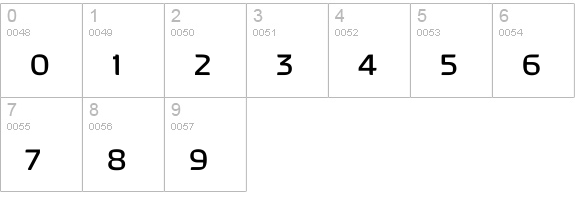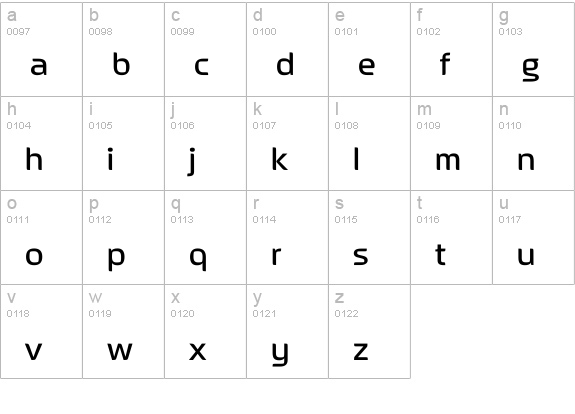
SeptemberMedium Font Details
Introducing SeptemberMedium font, a versatile typeface that strikes the perfect balance between elegance and readability. With its medium weight and clean lines, this font is perfect for a wide range of design projects, from branding to editorial design. The classic yet modern aesthetic of SeptemberMedium makes it a timeless choice for both print and digital applications. Best of all, SeptemberMedium is available for free download at FontsMarket.com. Now you can elevate your designs with this sophisticated font without breaking the bank. Whether you're working on a logo, website, or publication, SeptemberMedium is sure to add a touch of refinement to your project. Download it today and unlock the endless possibilities of this stunning font.